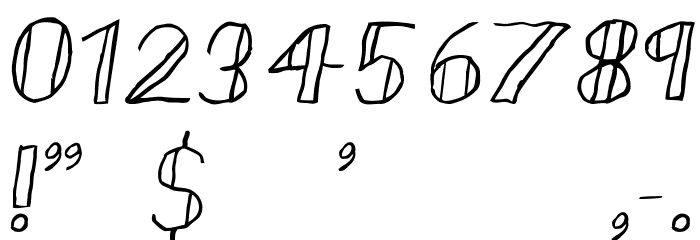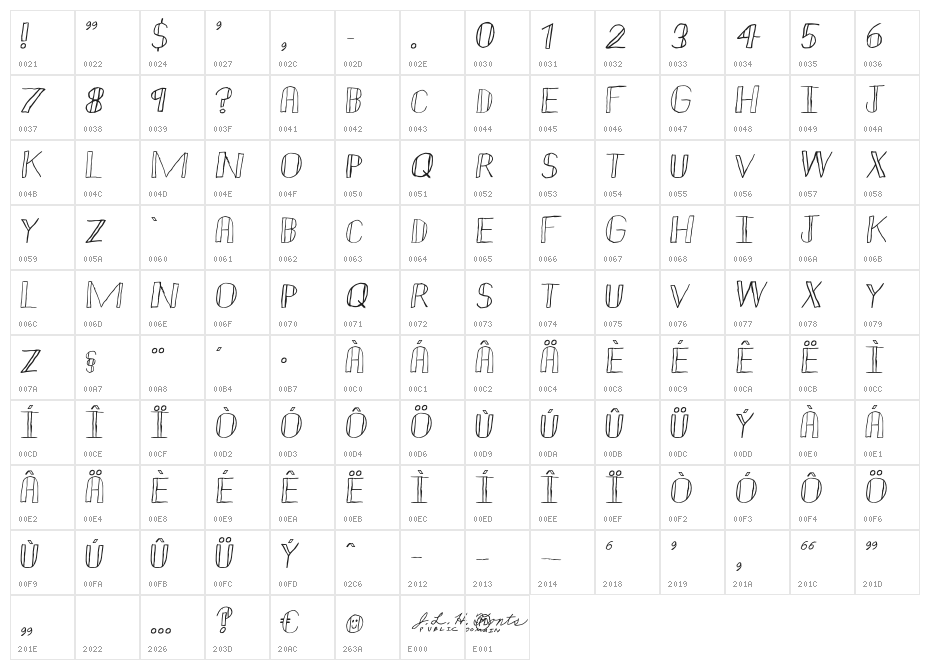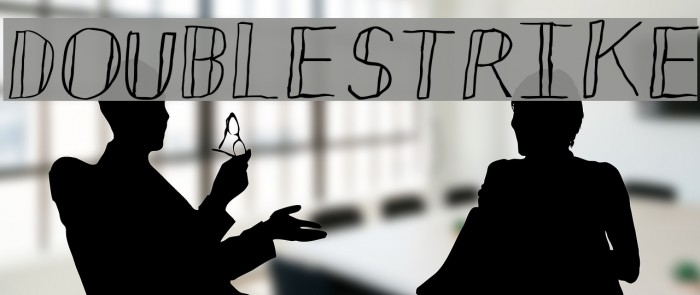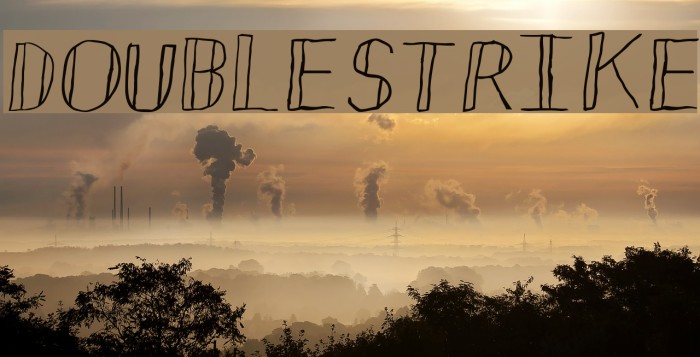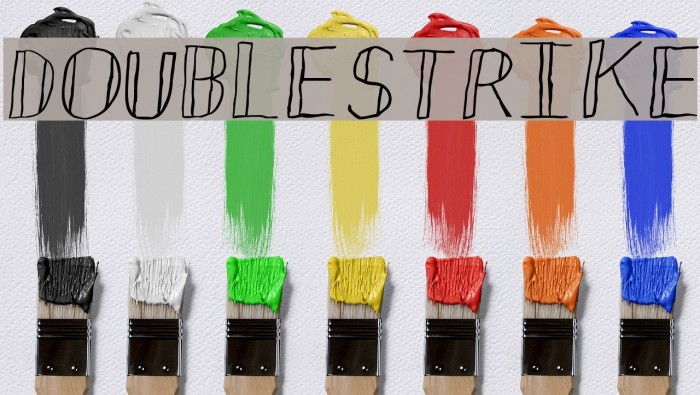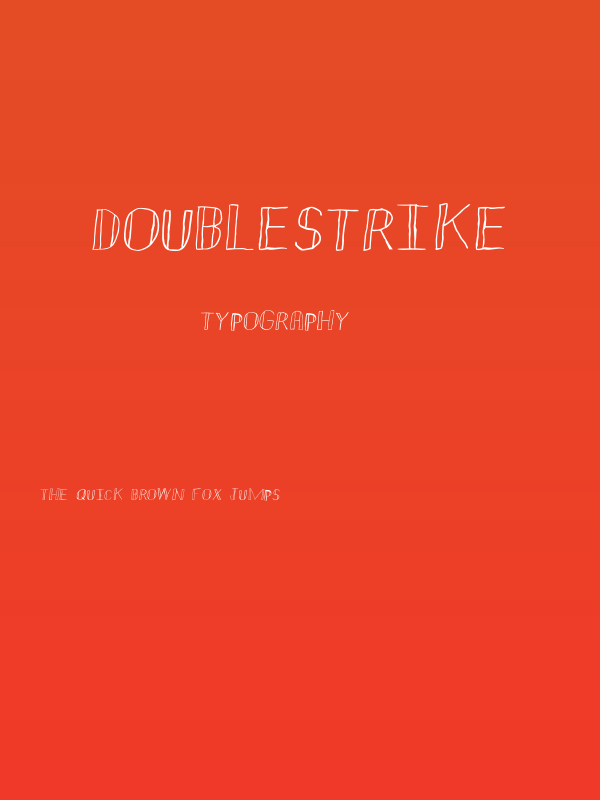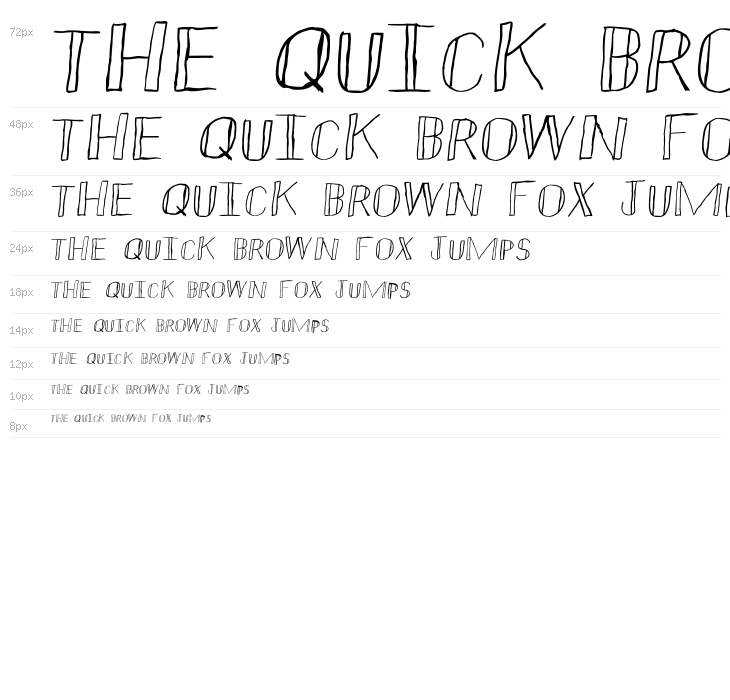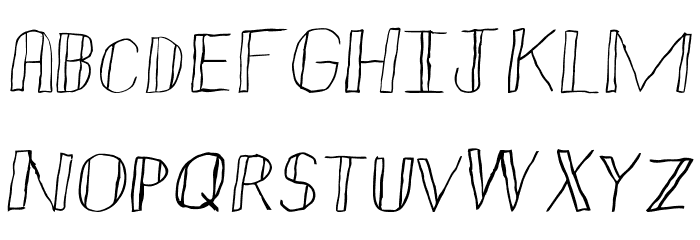
DoubleStrike Font
DoubleStrike Description
This font features a unique, hand-drawn style with a double-line effect that gives it a sketch-like appearance. Each character is outlined with two parallel lines, creating a sense of depth and dimension. The uppercase and lowercase letters maintain a consistent style, with slightly irregular strokes that add to the handcrafted feel. The numbers and special characters follow the same design principles, ensuring a cohesive look across all elements. This font's playful and artistic nature makes it stand out, offering a creative twist on traditional typography.
| Overall Style | Artistic, Handcrafted |
| Use Case | Headlines, Artistic projects, Branding |
| Proposed Projects | Ideal for creative projects such as posters, invitations, and artistic branding materials. |